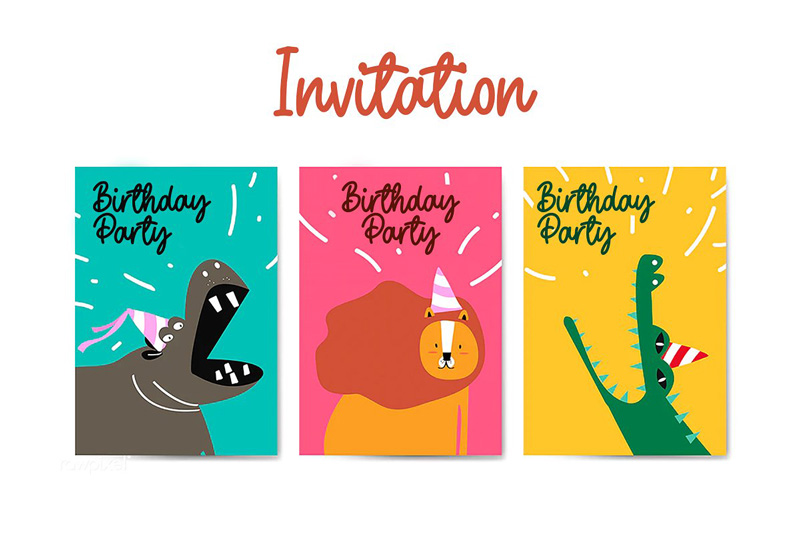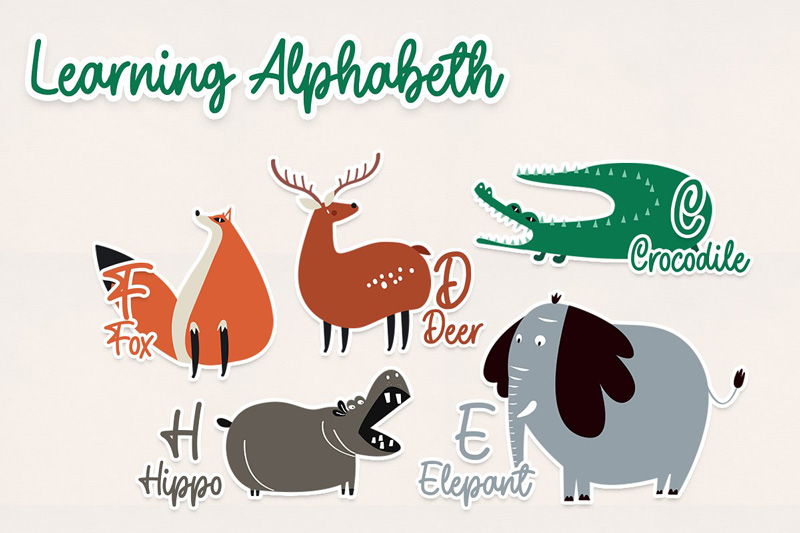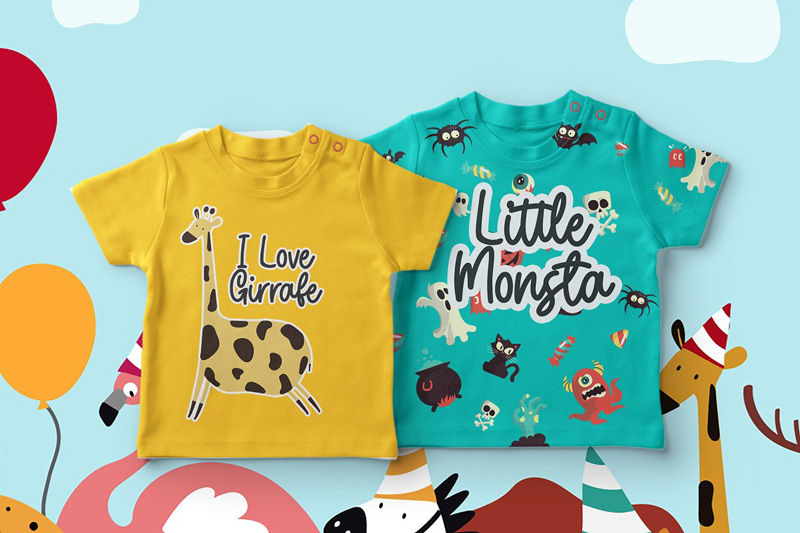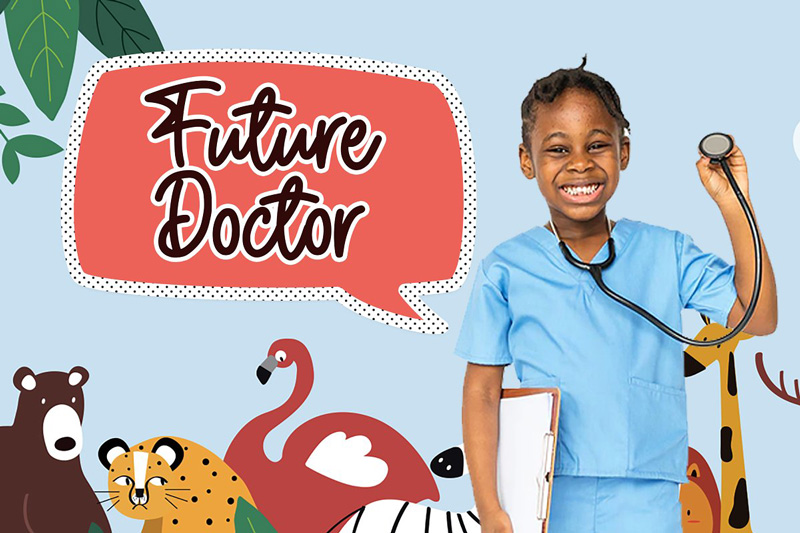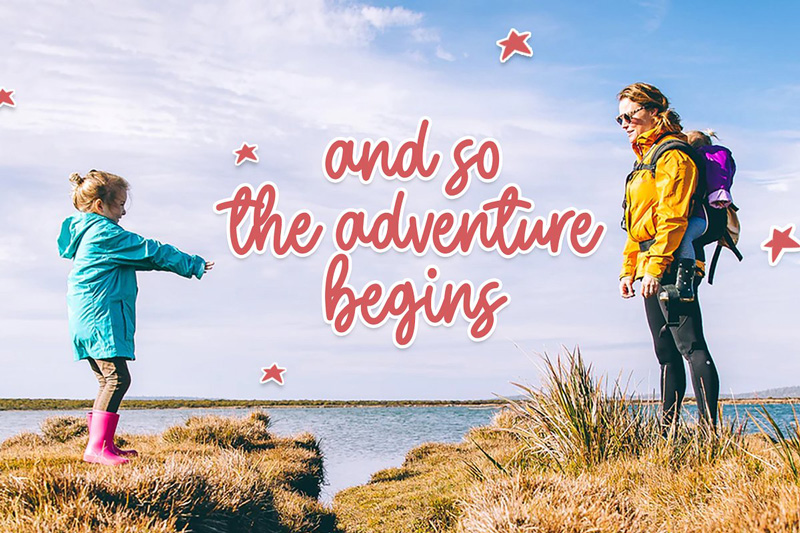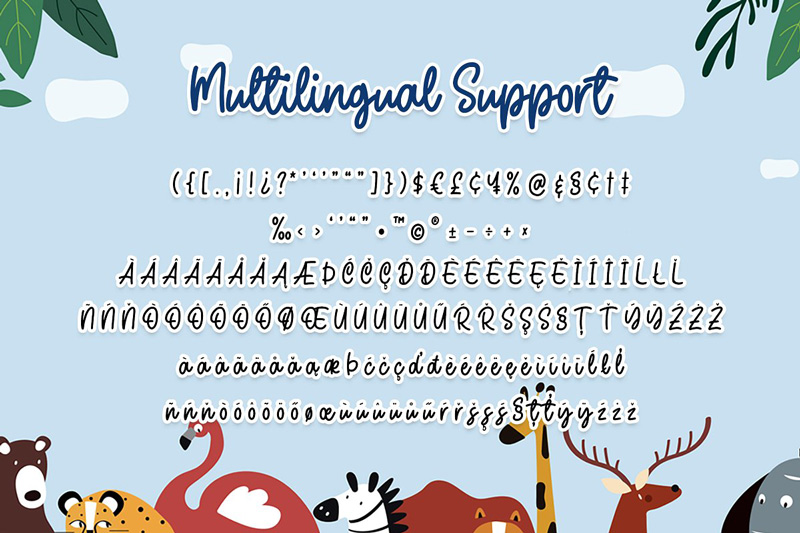
Weatpoint Playful Script Font
Weatpoint Playful Script Font is a stylish calligraphy font. This font spacially made for children Related work. You can use this font in children’s books, Book cover, toys packing, school-related painting, birthday card and much more.
• Uppercase and Lowercase letters
• Numbering and Punctuations
• Ligatures
• Multilingual Support